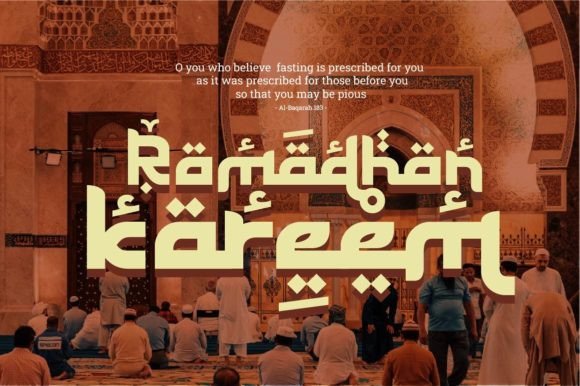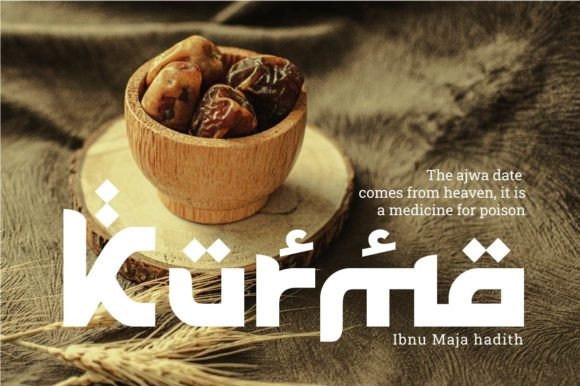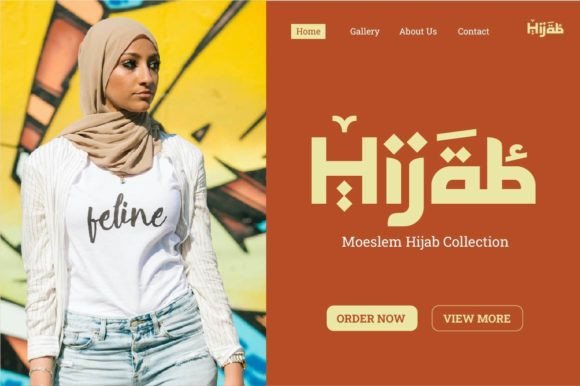
Introduction to Sahur Font
Have you ever sat down with a blank page and a blank mind, searching for the perfect font to bring your creative project to life? The struggle is real, but what if I told you there’s a font that can transport your design to a world of elegance and sophistication? Enter the stunning Sahur Font, a beautifully crafted Islamic display font that adds a touch of Islamic art and culture to any written text.
Designed to be used for decorative purposes, calligraphy, or artistic projects, Sahur Font is a valuable resource for designers looking to add a unique and high-quality element to their work. With its intricate Islamic motifs and ornate design, this font brings the essence of Islamic heritage and aesthetics to your written expressions. Whether you’re working on a creative project or simply want to add a touch of sophistication to your designs, Sahur Font is a must-have design resource that’s available for free download.
Sahur Font
- High-quality font suitable for creative projects, with a transparent background for seamless integration.
- Perfect for designers and artists working on digital or print projects, offering a unique and elegant design resource.
- Unique characteristics include a clean and minimalist design, making it an ideal choice for modern and contemporary creative projects.
Honest Review: Sahur Font
I recently came across the Sahur Font, and I must say it’s a fantastic addition to any designer’s library. The high quality of this font is immediately noticeable, and its sleek design makes it perfect for a wide range of creative projects.
One of the standout features of the Sahur Font is its transparent background, which allows for seamless integration with any background image or color. This makes it an excellent choice for designers working on complex designs or those who want to add a touch of elegance to their work.
What works well: ✨ The Sahur Font is incredibly versatile and can be used for both web and print designs. Its high-quality design ensures that it will always look great, even at larger font sizes.
Overall, I’m thoroughly impressed with the Sahur Font. It’s a fantastic design resource that can elevate any creative project. If you’re looking for a high-quality font with a transparent background, look no further than the Sahur Font.
- High quality design
- Excellent for web and print designs
Sahur Font
The Sahur Font is a free download available for creative projects that require high-quality typography. With a transparent background, this font is versatile and can be used across various design platforms.
Tips for Getting the Most Out of Sahur Font
For optimal results, use the Sahur Font in combination with a clear and simple design aesthetic. You can also experiment with different font sizes and colors to create a visually appealing design.
Common Use Cases for Sahur Font
The Sahur Font is commonly used in creative projects such as logos, business cards, and social media graphics. Its high-quality typography and transparent background make it an ideal choice for designers looking for a versatile and professional font.